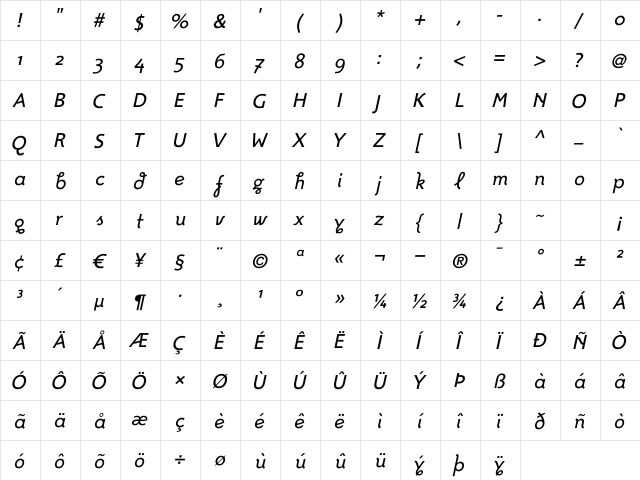
FoxRegularItalic Regular
Design Context for FoxRegularItalic Typeface
FoxRegularItalic is a composed and adaptable typeface that performs quietly and consistently across a wide range of design contexts. Its italic angle brings a sense of urgency and motion to the letterforms.